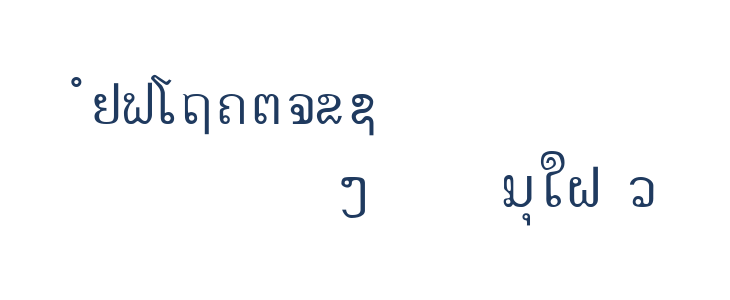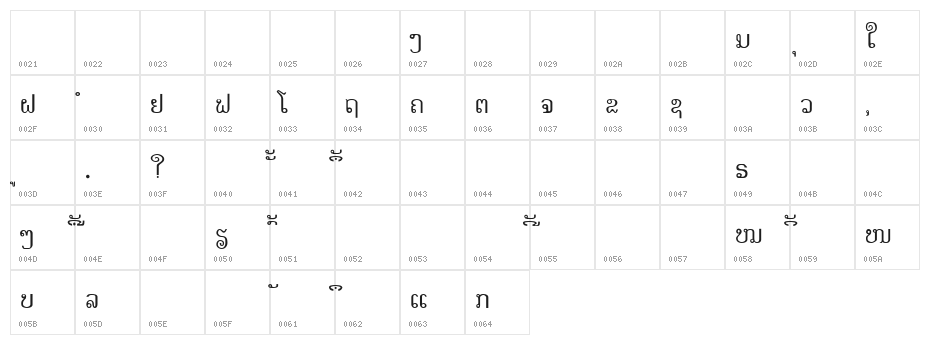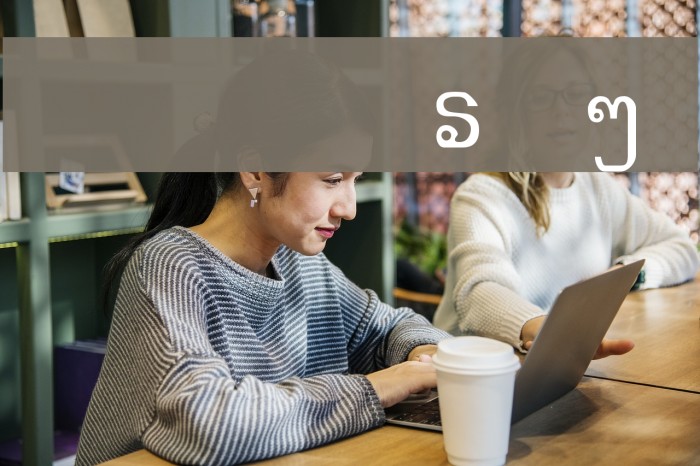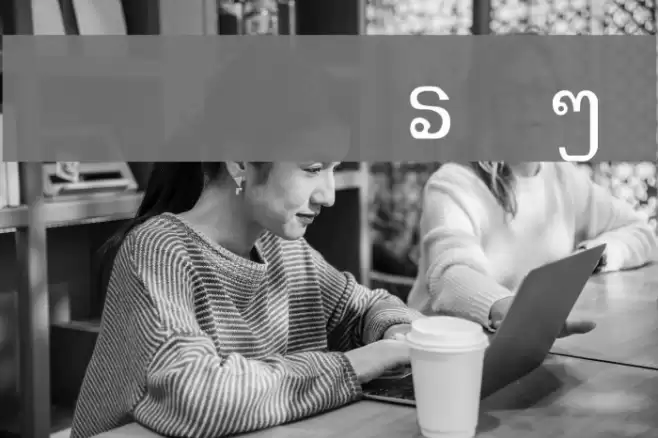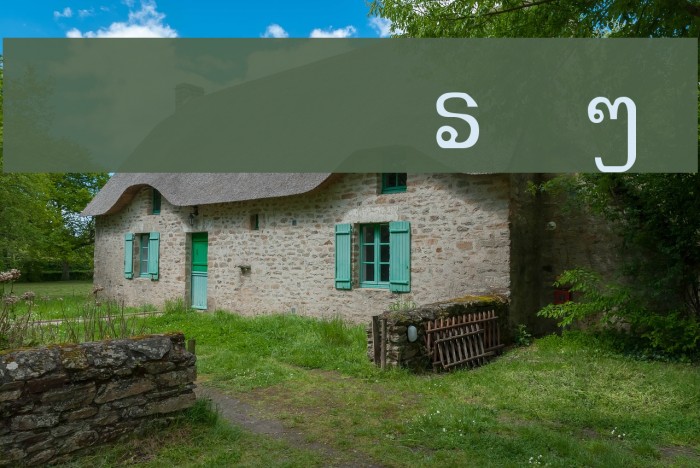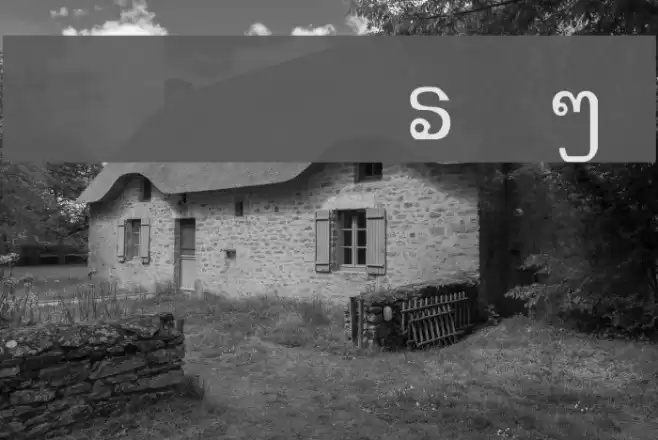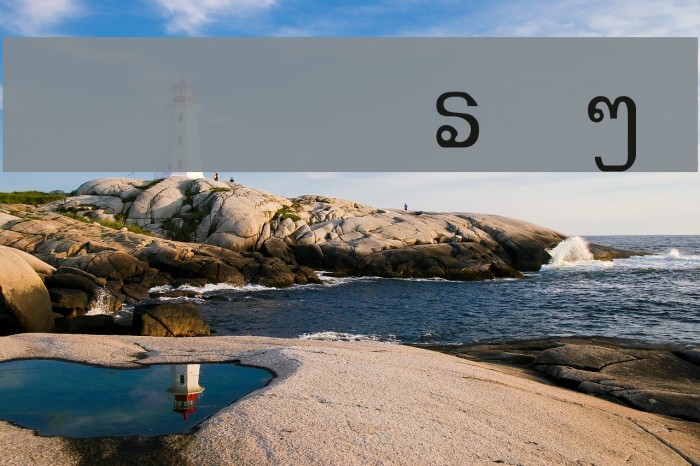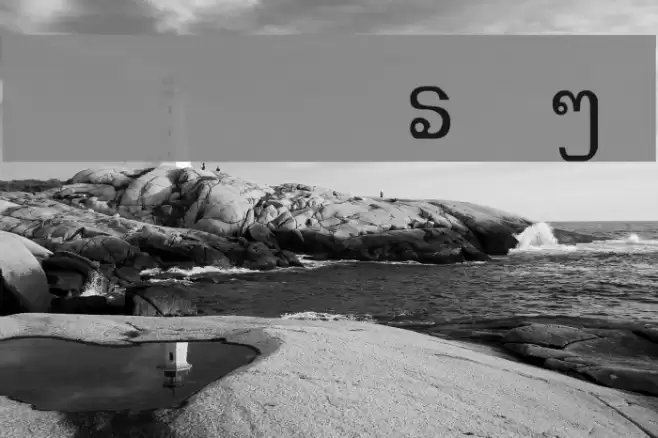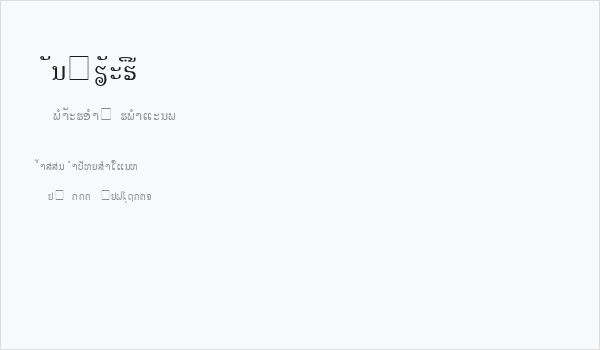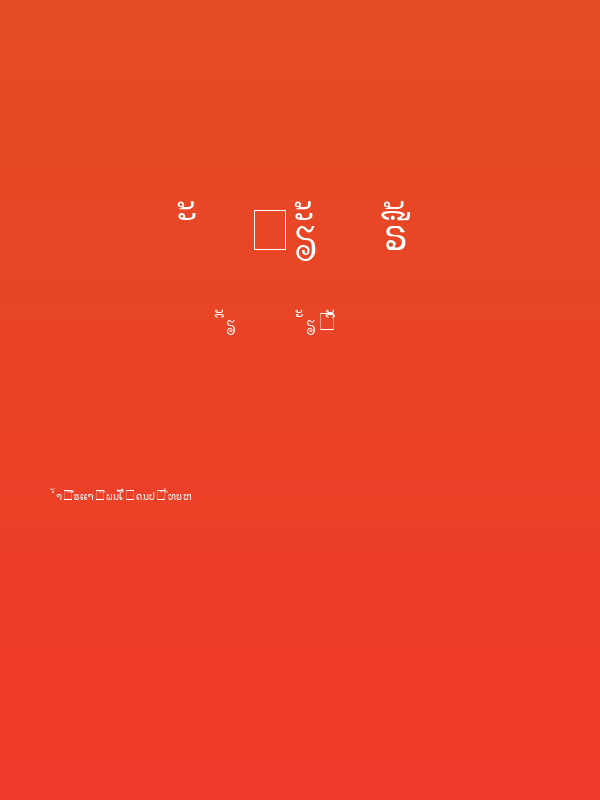
Lao Patin Font
| Use Case | Body text, educational materials, user interfaces |
| Proposed Projects | Educational materials, signage, digital interfaces, branding for Lao language content. |